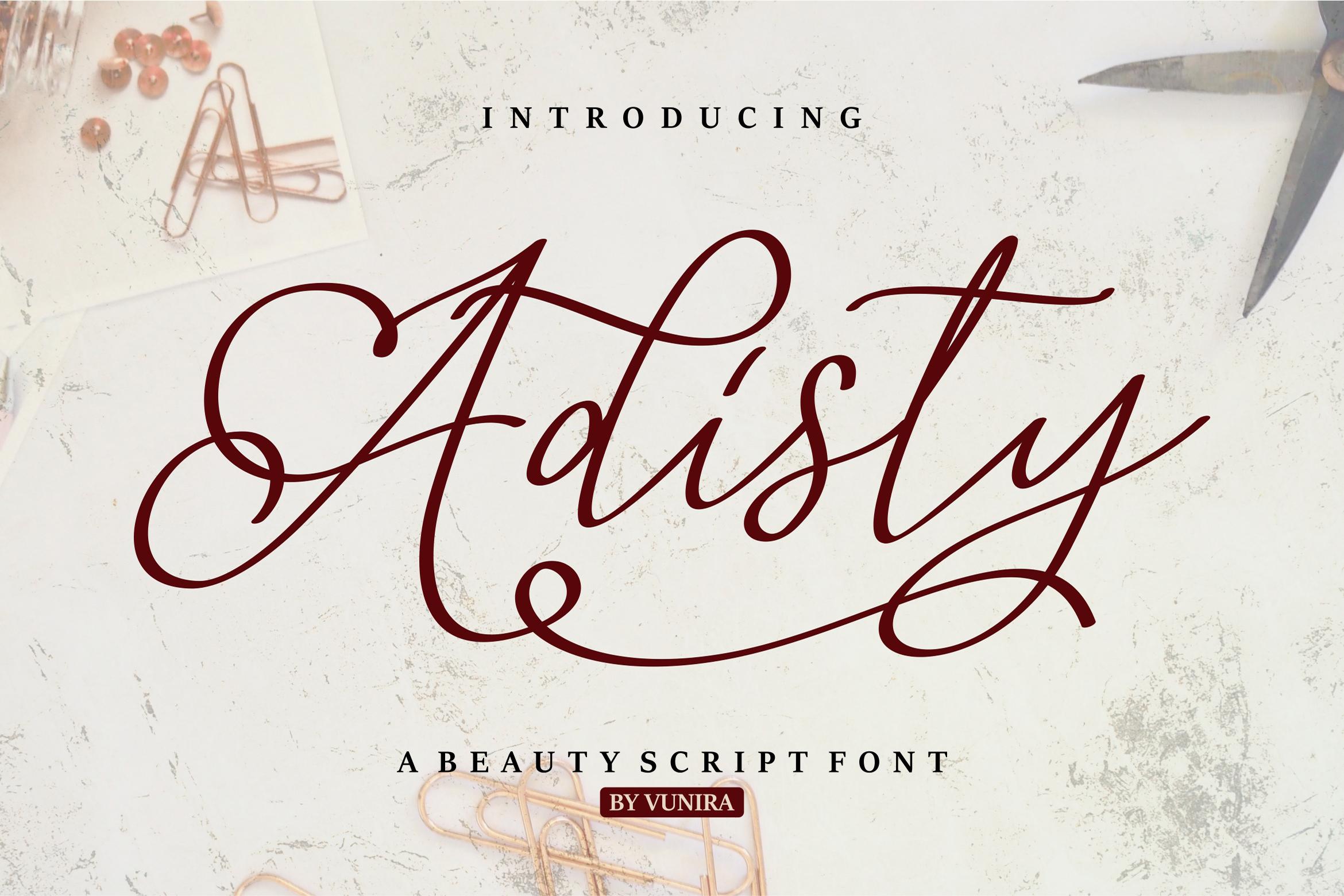
Adisty is a lovely and timeless handwritten font. It is the best choice for creating eye catching logos, branding and quotes. Every letter has a unique and beautiful touch, which will make your design come alive!